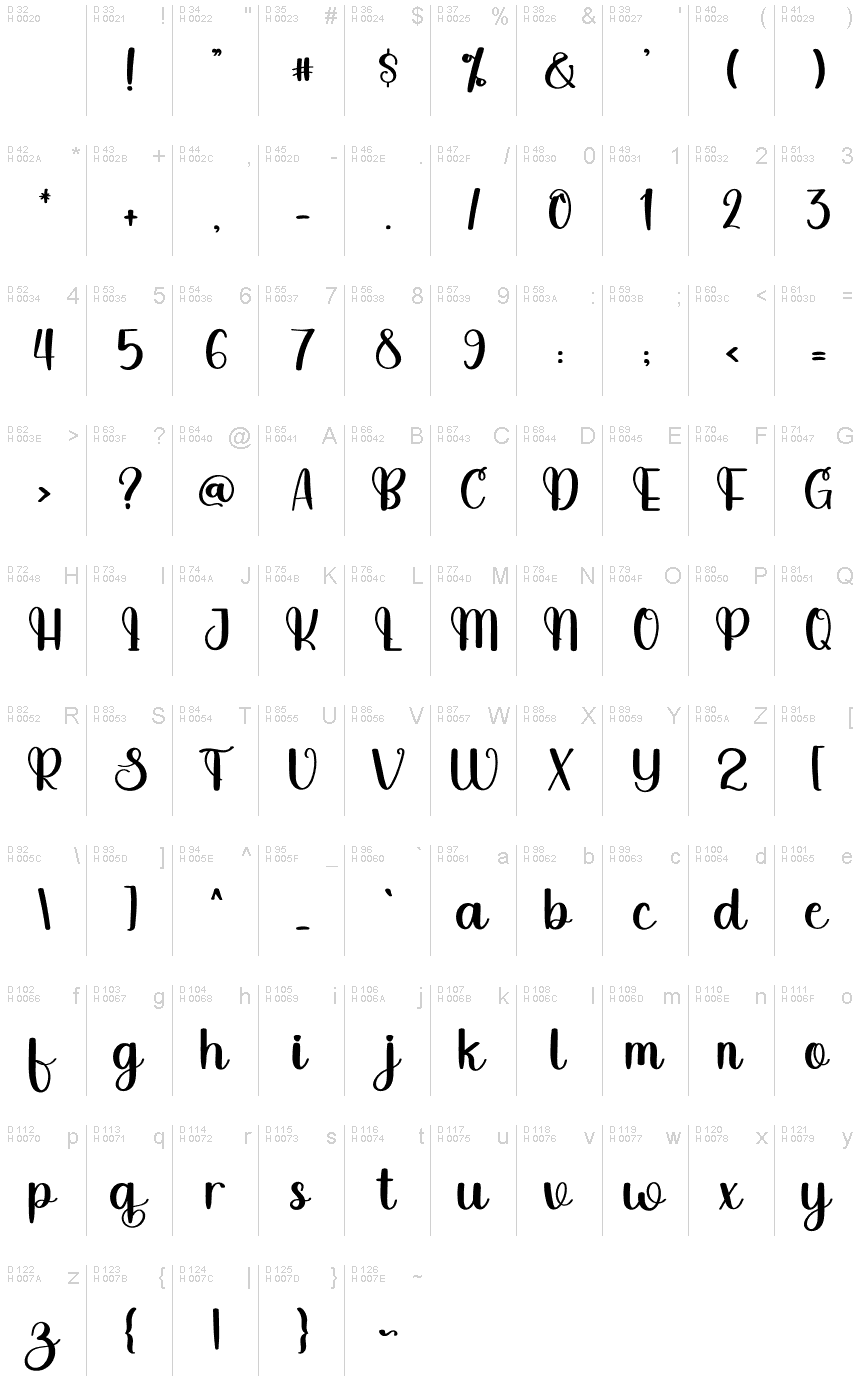
Hello Paradise
Hello Paradise, a captivating handwritten font by Inermedia Studio, perfectly balances elegance and playfulness. Its semi-bold weight ensures readability while adding a touch of boldness to your designs. This versatile typeface is ideal for various projects, such as wedding invitations, branding materials, and logo designs, infusing them with a delightful and personal feel. Whether you're creating a whimsical children's book or designing a sophisticated fashion magazine, Hello Paradise will bring your ideas to life with its unique charm and versatility. Embrace this enchanting font and let your creativity soar in paradise.